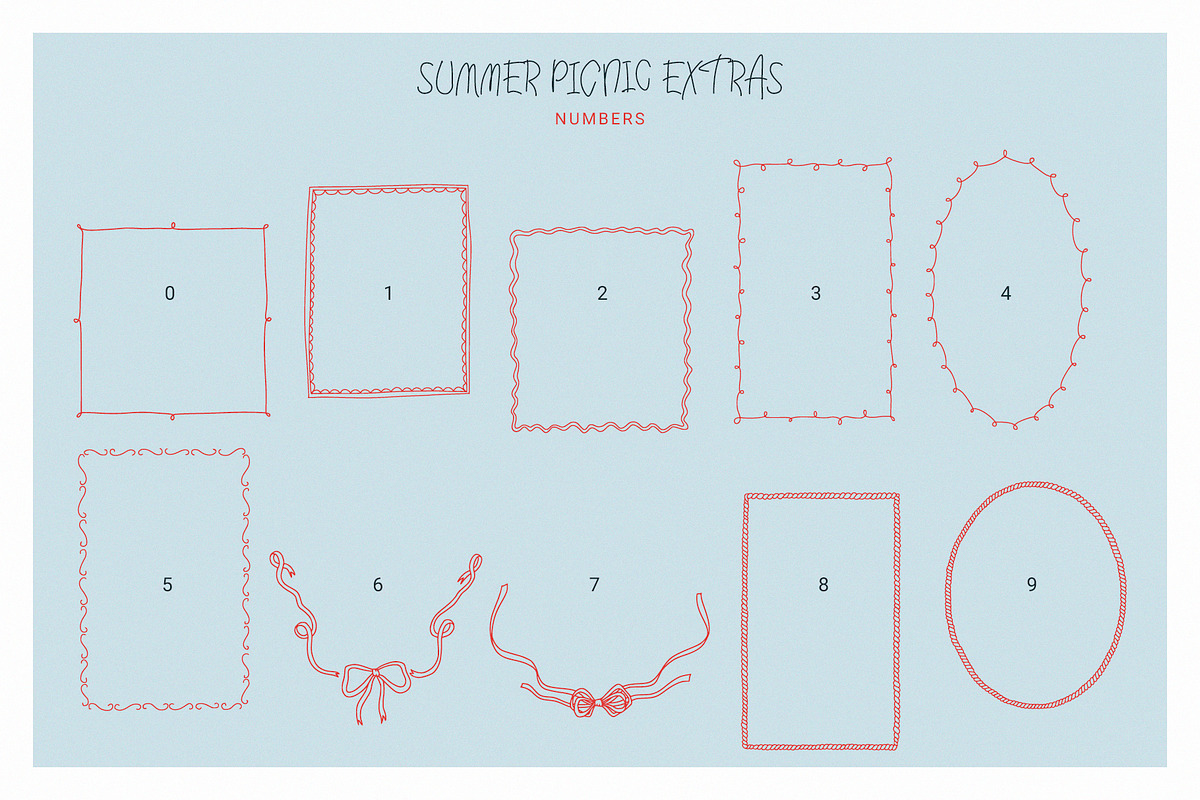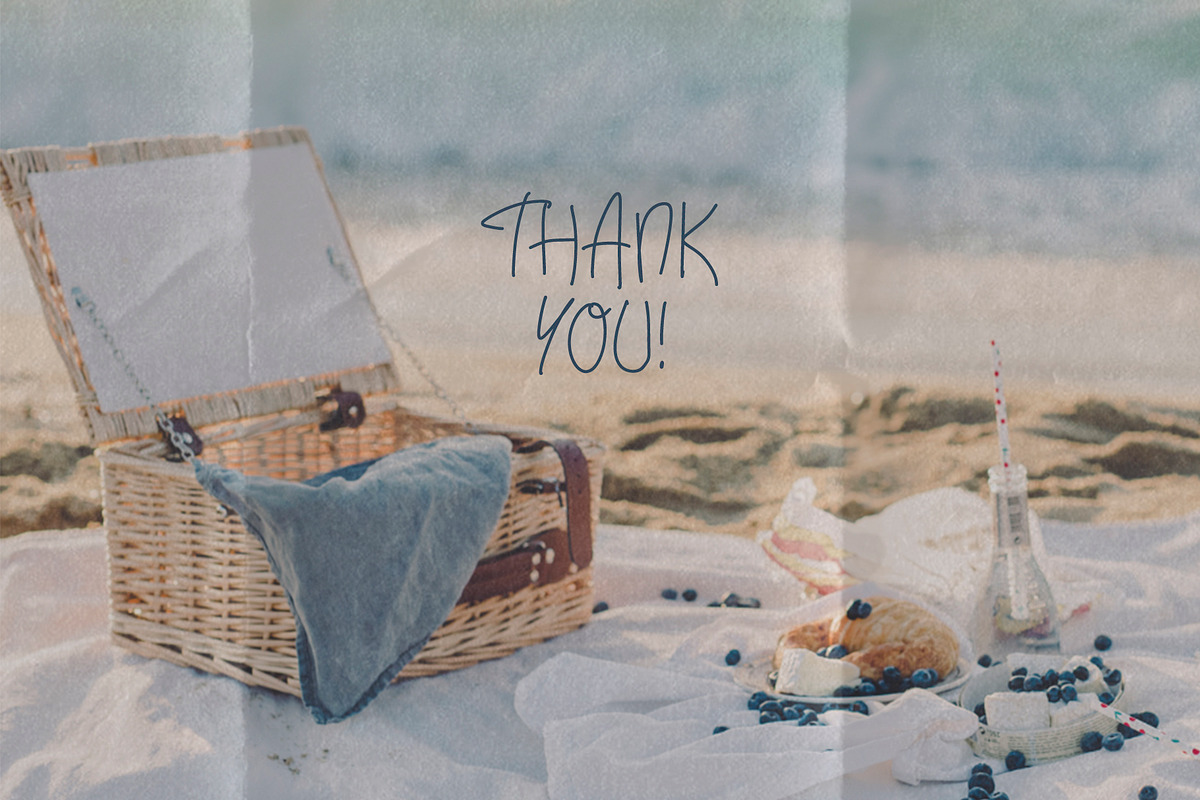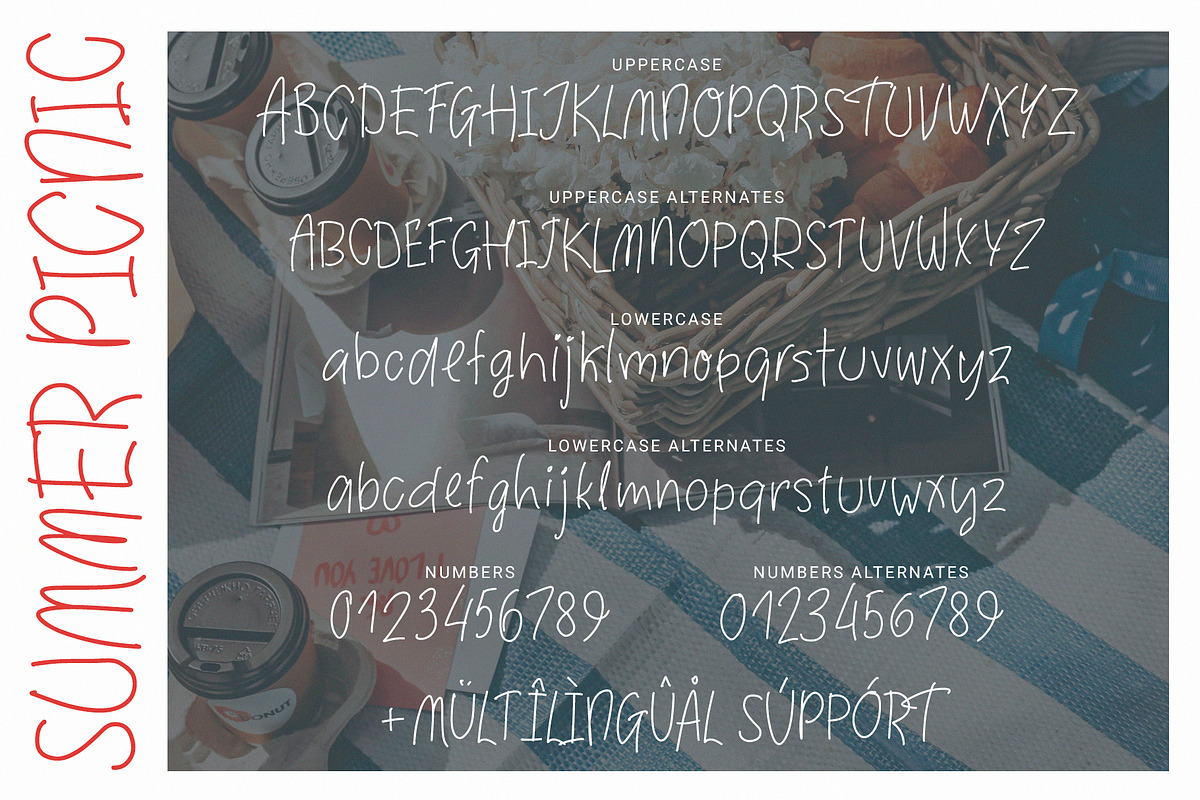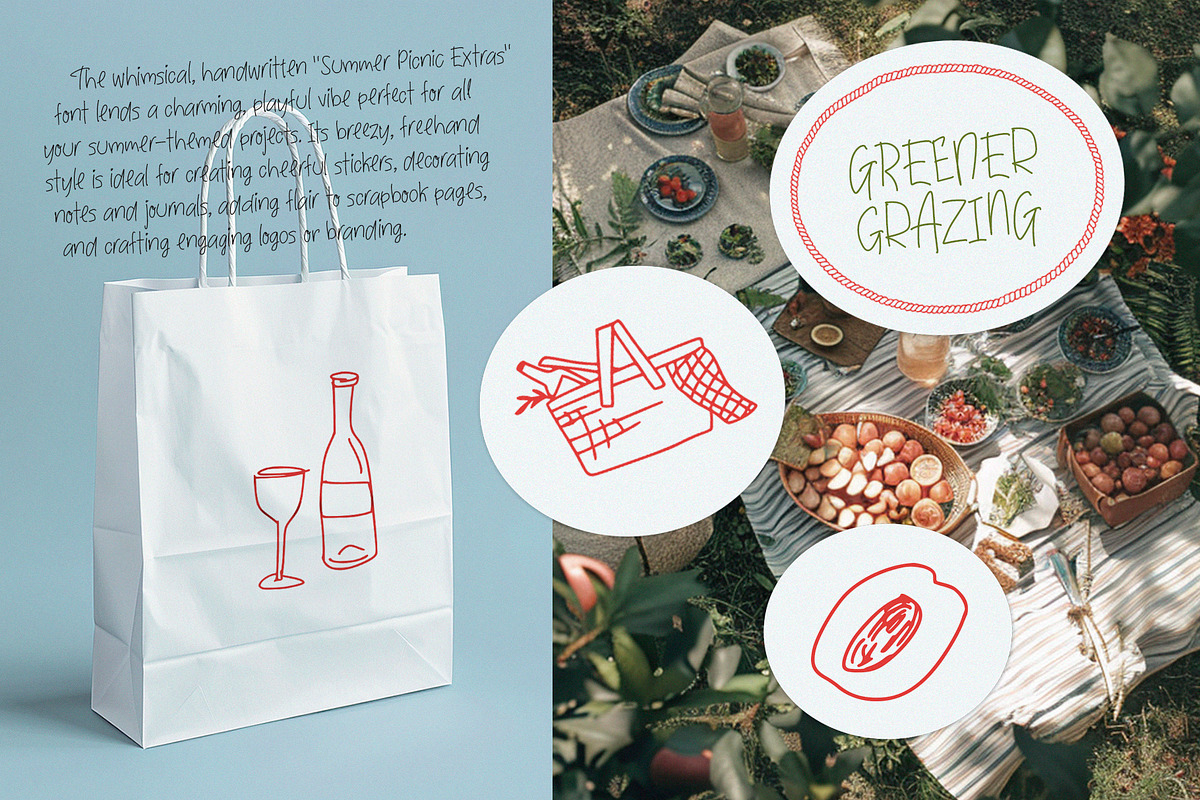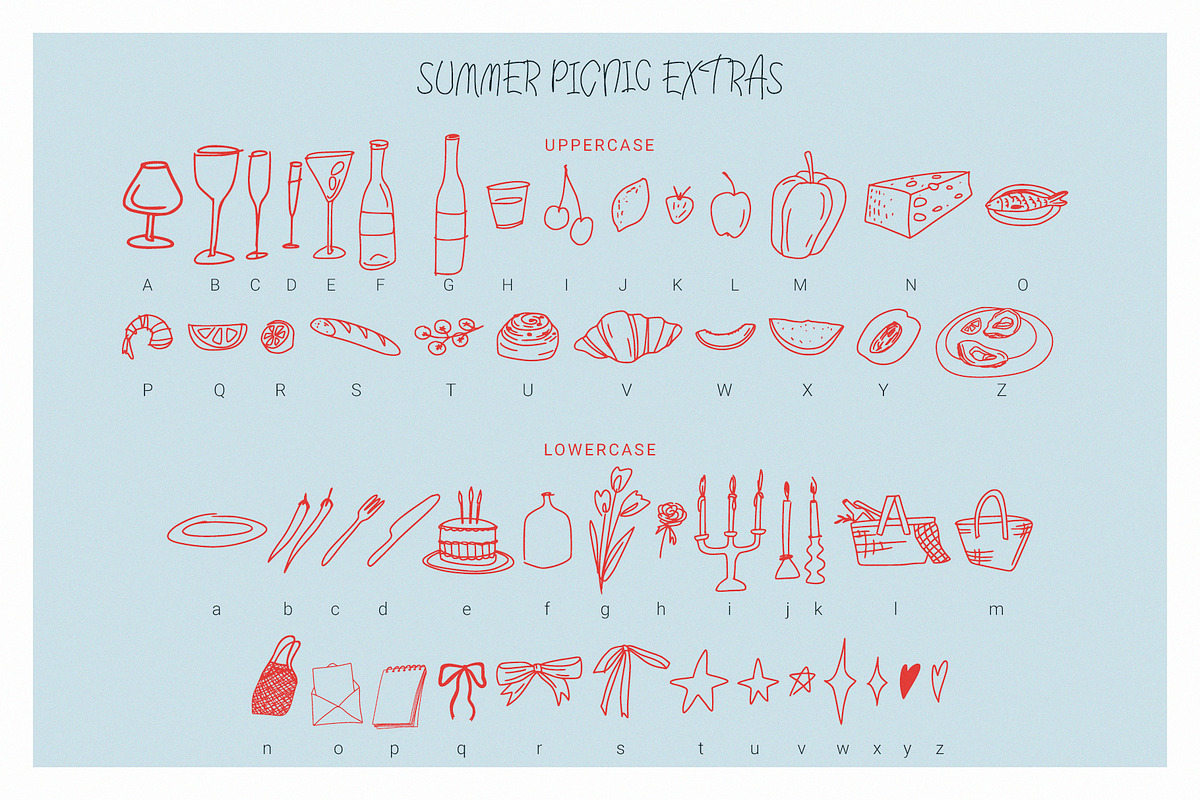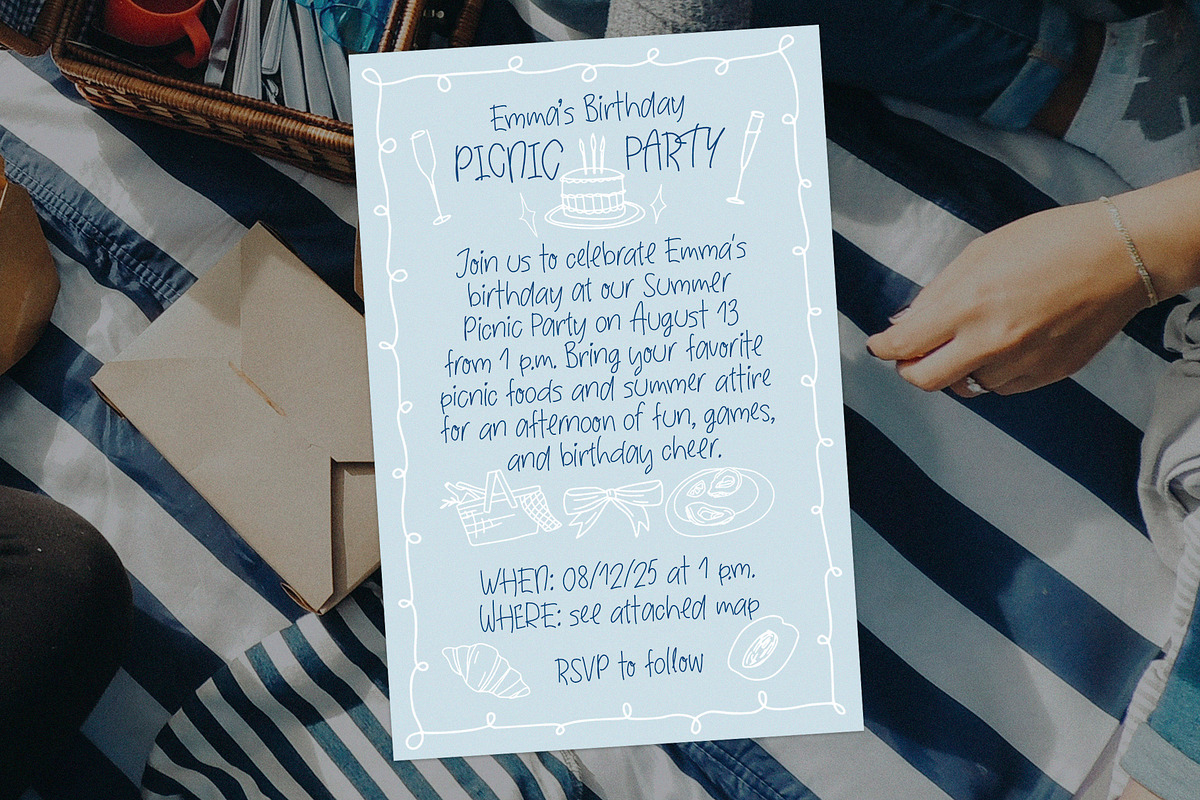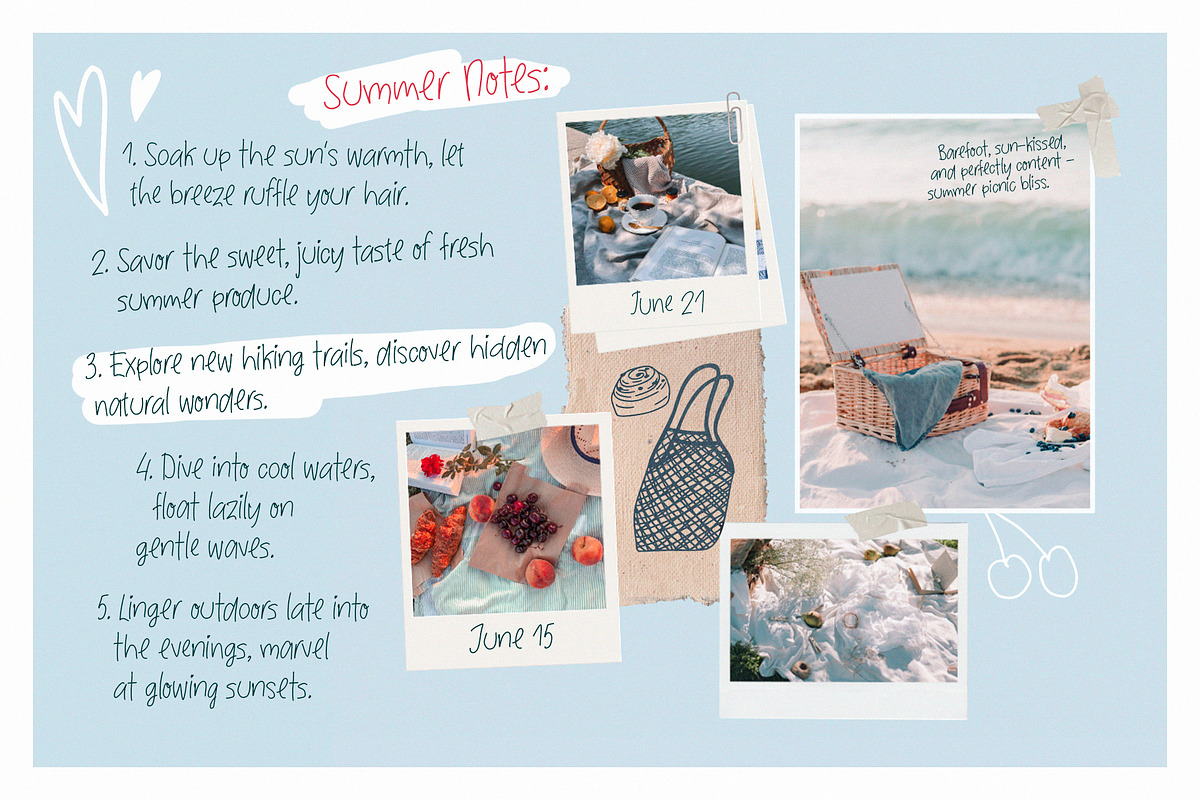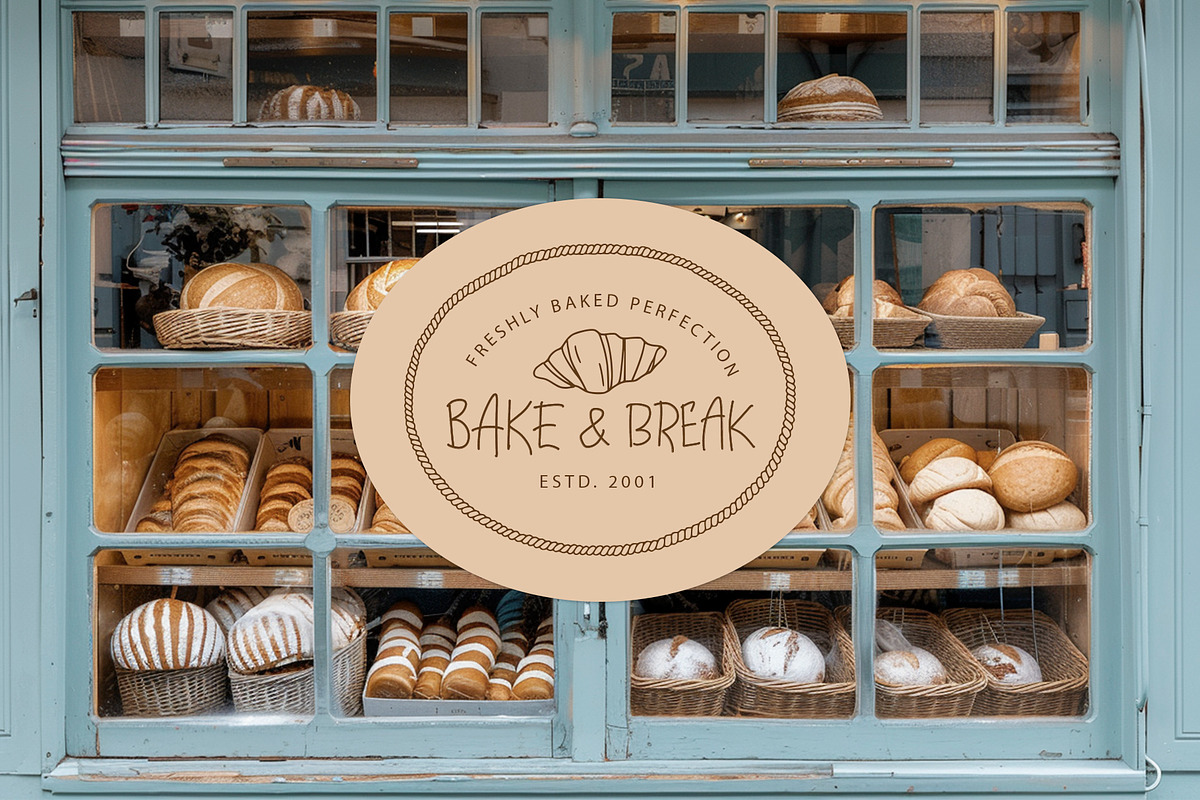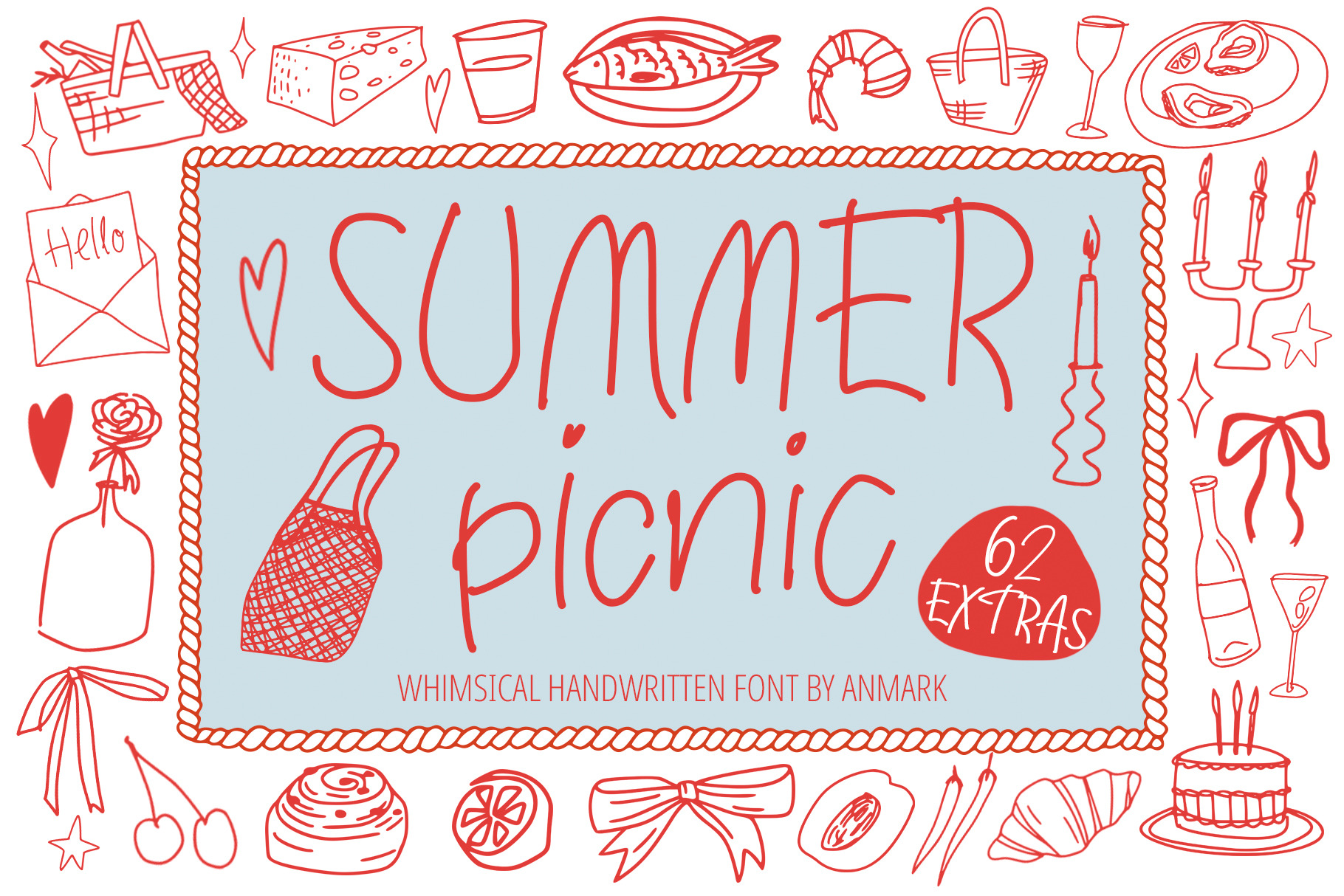
Summer Picnic | Extras Doodle Font
The Summer Picnic font captures the carefree, whimsical spirit of sunny days and casual outdoor gatherings. This charming handwritten typeface comes in two styles - the classic Regular version, and the playful Extras set which includes a delightful collection of line art doodles perfect for summer picnics and beyond.
The Regular style offers a breezy, freehand script that works beautifully for all your summer-inspired design projects. Use it to create engaging logos, lively social media graphics, wedding and birthday invitation, adorable stationery, and more.
The Extras version takes the design to the next level, providing an assortment of illustrated elements like picnic baskets, watermelons, wine bottles and glasses, frames and other summery motifs. Mix and match these playful doodles to add a fun, handcrafted touch to cards, tags, product packaging, and all your seasonal designs.
Whether you're a designer, crafter, small business owner, or simply someone who loves to document the joys of summer, the Summer Picnic font has the versatility to elevate your creative projects with a touch of sunny, carefree style.